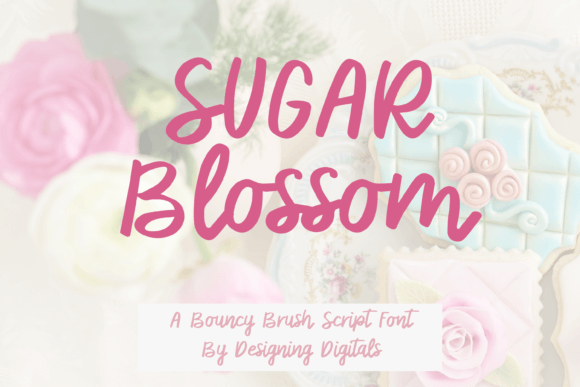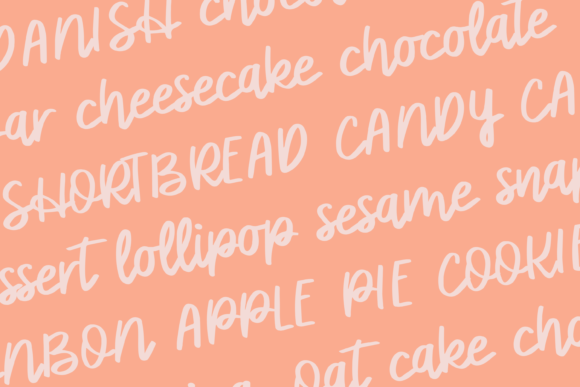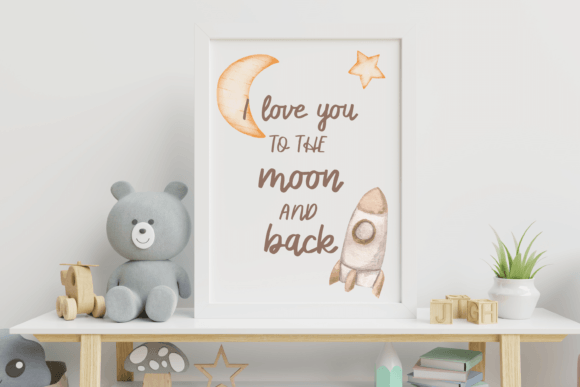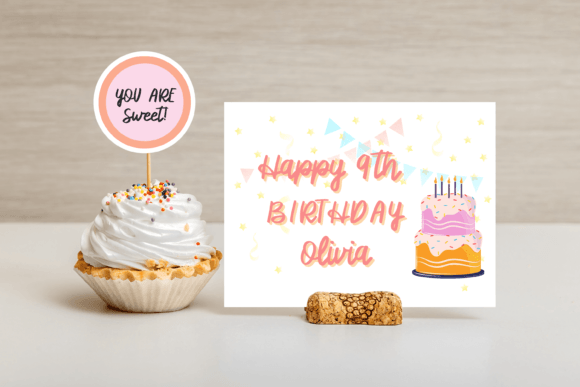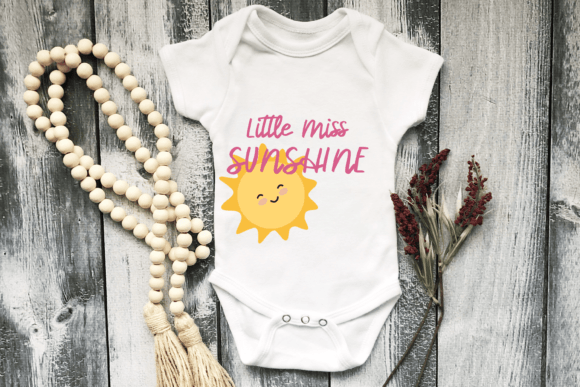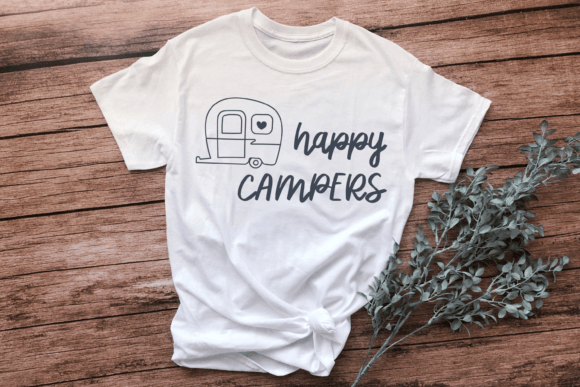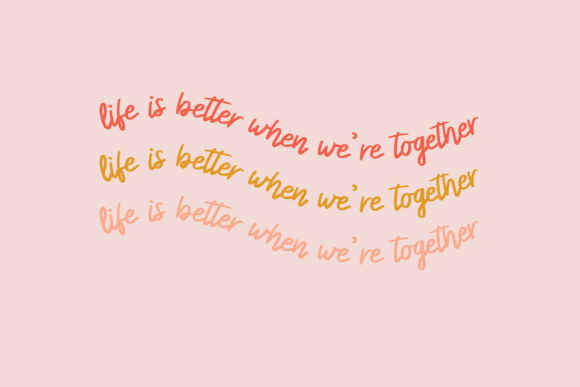
Sugar Blossom Font
About Sugar Blossom Font
Introducing Sugar Blossom, a delightful handwritten brush script font that adds a sweet and playful touch to your designs. This charming font is perfectly suited for various creative applications, making it ideal for fun logos, greeting cards, t-shirt designs, stickers, social media graphics, and any craft or project that calls for a touch of whimsy.
The appeal of Sugar Blossom lies in its handcrafted brush strokes, which exude a natural and carefree vibe. This font is designed to infuse a sense of joy and creativity into your projects, making it a perfect choice for endeavors that embrace a lighthearted and fun aesthetic.
For fun logos, Sugar Blossom brings a unique and friendly character. Its handwritten brush script adds personality and charm, making your logo stand out with a playful and approachable feel.
In the realm of greeting cards, Sugar Blossom enhances the sentiment with its sweet and casual style. Whether used for birthdays, celebrations, or heartfelt messages, this font adds a touch of warmth and sincerity.
T-shirt designs benefit from the laid-back and fun nature of Sugar Blossom. It’s ideal for creating designs that resonate with a youthful and carefree audience, injecting a sense of playfulness into your apparel projects.
Stickers, social media graphics, and other craft or project applications shine with the whimsical charm of Sugar Blossom. Its versatility allows it to adapt seamlessly to various creative contexts, making it a valuable asset for DIY projects and digital endeavors alike.
Whether you’re working on digital designs or physical crafts, Sugar Blossom is a font that brings a sweet and handwritten touch to your creative endeavors. It’s more than just letters; it’s a visual expression that adds a dash of joy and creativity to your projects.
In conclusion, Sugar Blossom is a font that radiates fun and charm. Its handwritten brush script style makes it a versatile and engaging choice for a range of creative applications. Choose Sugar Blossom to infuse your designs with sweetness and playfulness.